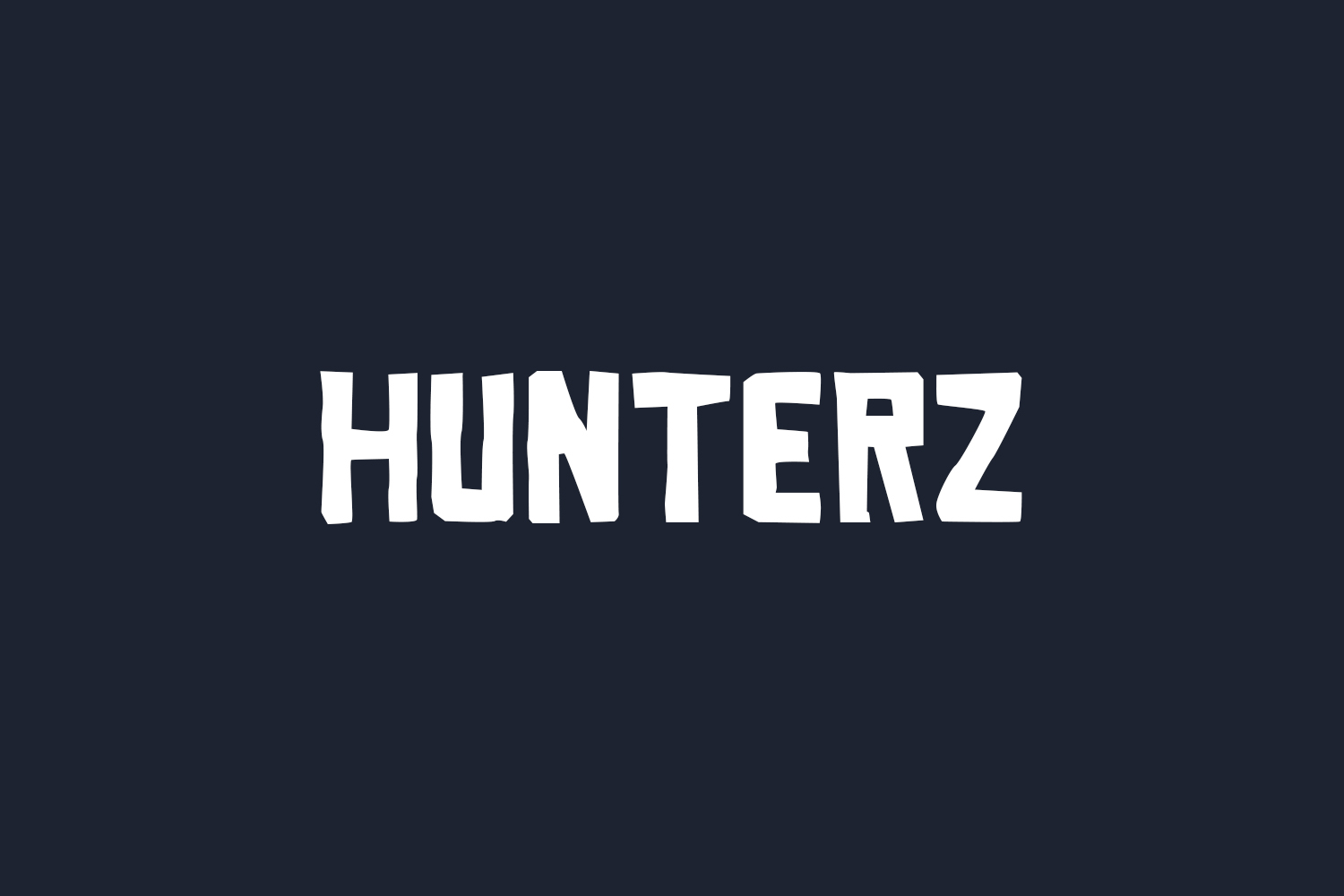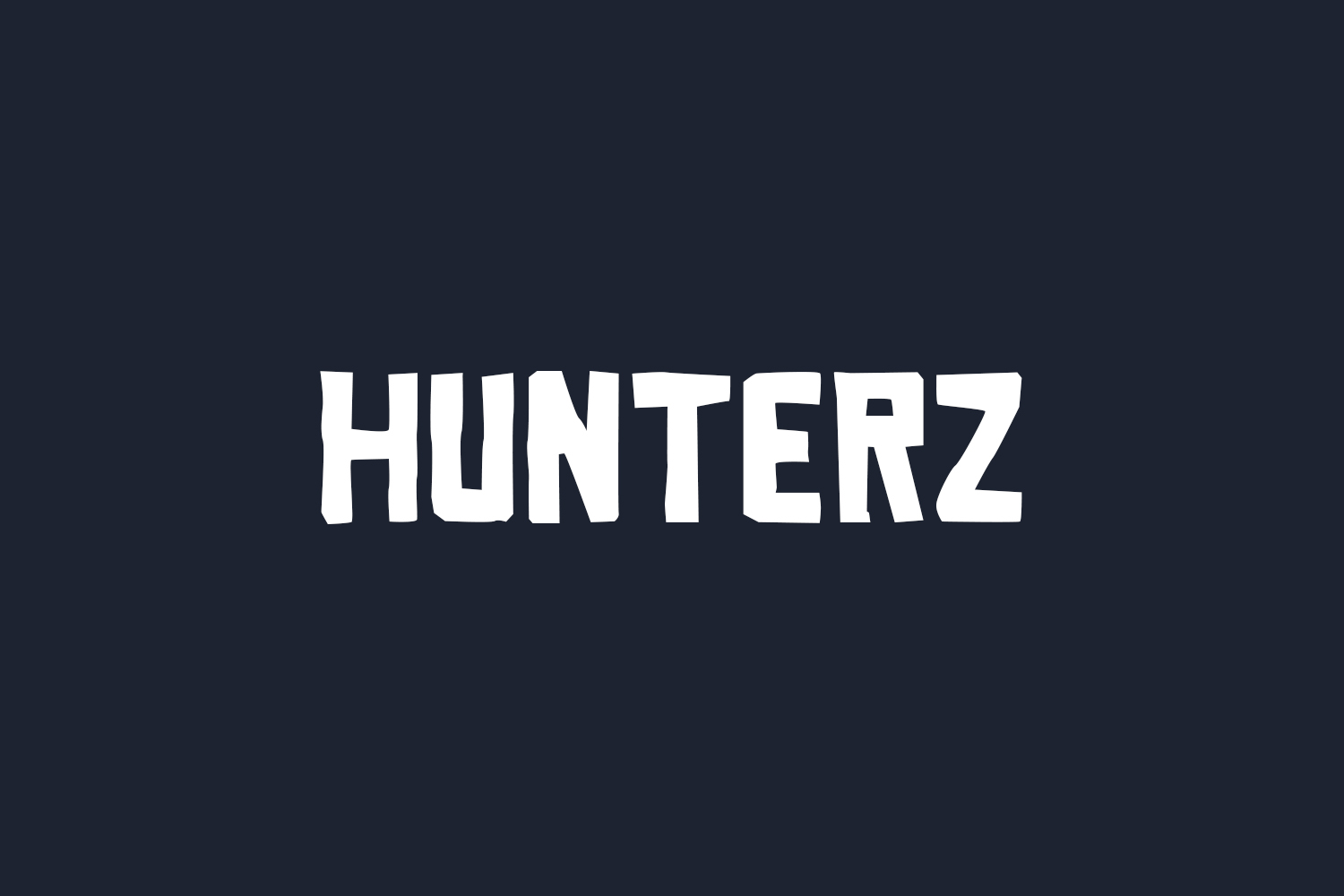
CasinosHunter is not only an online casino reviewing platform but also a team of talented and dedicated people that create their own unique content. This time, CasinosHunter shares a new beautiful and unusual font that can be downloaded freely and without limitations right on the platform. Please check the license and the rules that apply, and feel free to use the Hunterz font for your personal or commercial projects! CasinosHunter is skillful at making designs and imagery, and today you can take advantage of that, getting a new font for yourself, free of charge, only licking back to the source.